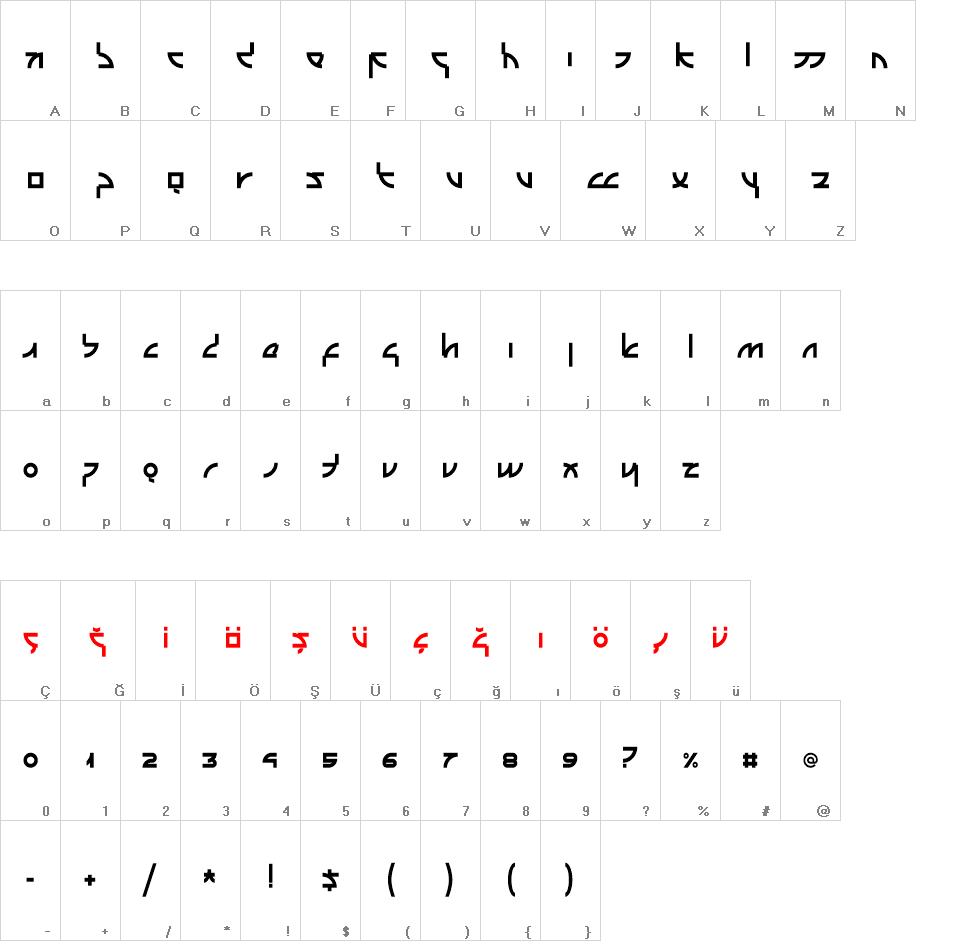
Latikana font
Learning japanese has never been easier with Latikana - a bamboo typeface that you can read instantly*.
Comes with considerable amount of diacritics and contextual alternates.
(*some concentration may be required)